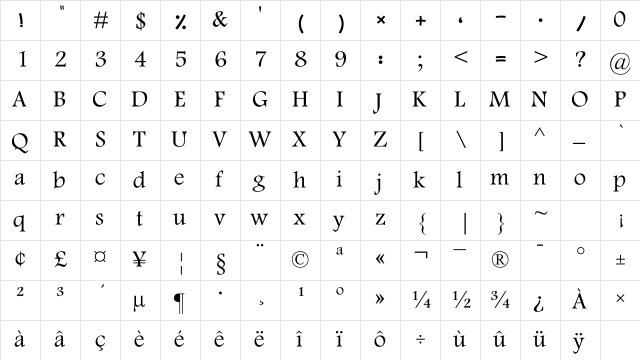
Homa Normal
Design Context for Homa Typeface
Homa offers clean, dependable letterforms without strong stylistic allegiance, making it a practical choice for designers who need flexibility.